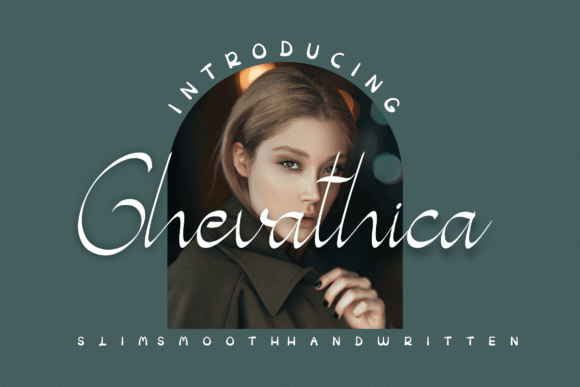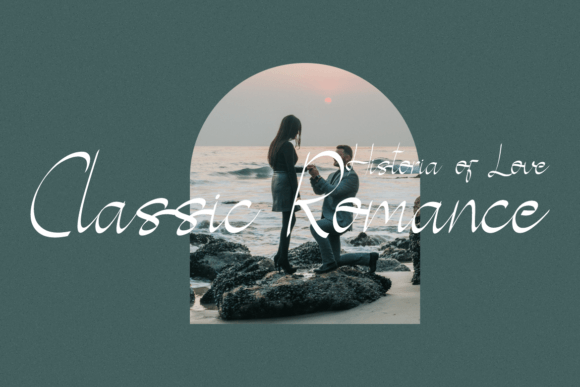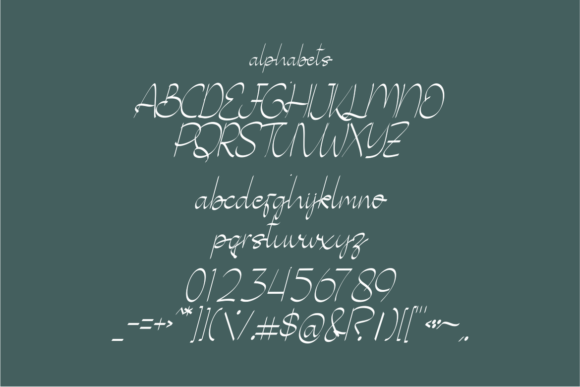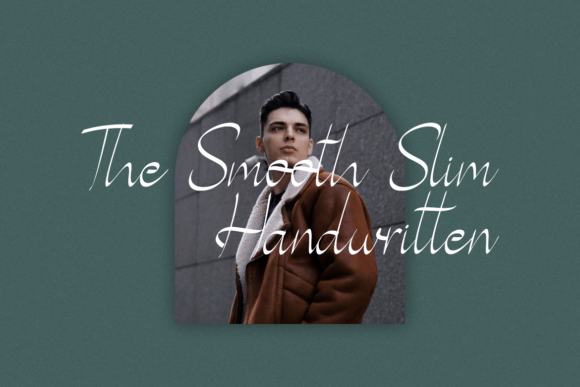
Ghevathica Font
About Ghevathica Font
“Ghevathica” is a script font with an elegant, classy, and modern appearance that can elevate your typography to new heights. This font’s versatility makes it a valuable choice for a wide variety of design projects, allowing it to shine in numerous creative applications.
The adaptability of “Ghevathica” means it can be used effectively in a range of contexts. Whether you’re working on fashion and apparel projects, creating distinctive signatures, designing album covers, crafting logos and branding materials, producing magazine layouts, developing engaging social media content, or crafting eye-catching advertisements, this font can provide a refined and modern touch to your designs.
One of the standout qualities of “Ghevathica” is its ability to convey a sense of timeless elegance. Its well-crafted characters and stylish script style make it a top pick for projects where you want to create a sophisticated and modern look.
“​​Ghevathica” is well-suited for designs that require a touch of class and contemporary style. Its adaptability ensures that it can meet various design needs, allowing you to use it effectively in a broad range of creative projects.
In summary, “Ghevathica” is an elegant, classy, and modern script font that brings sophistication to your typography. Its versatility makes it suitable for a diverse array of design applications, from branding to social media and beyond. When you select “Ghevathica,” you’re choosing a font that adds a timeless and refined quality to your creative work, helping it stand out with its elegant allure.